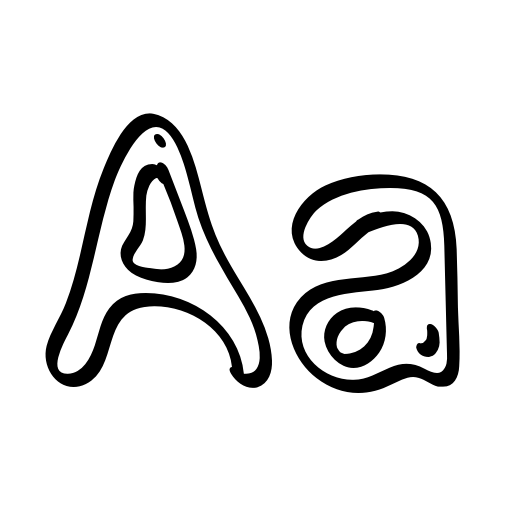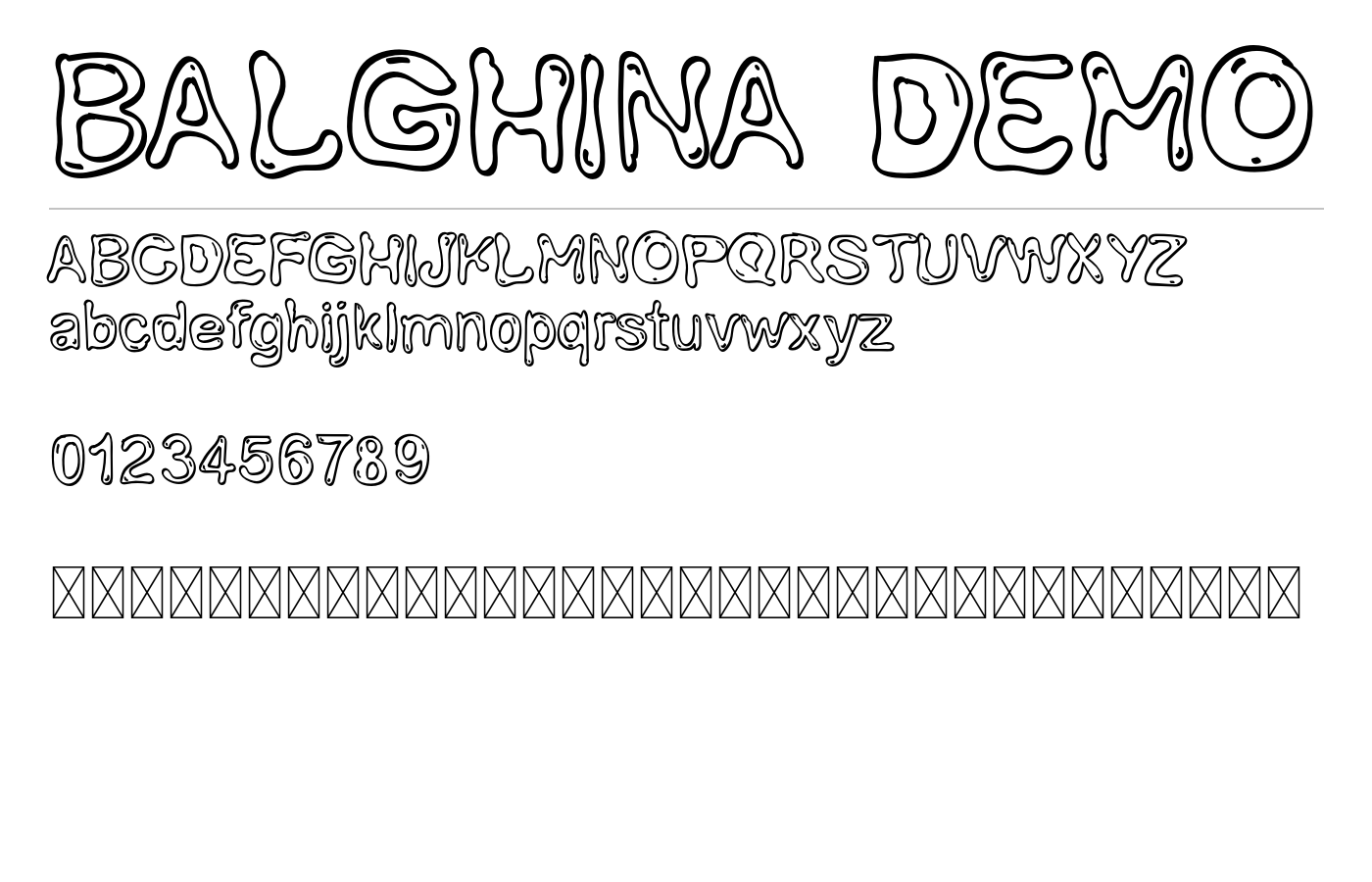
Balghina Demo is a playful and quirky hand-drawn sans serif font featuring irregular, wavy letterforms that create a casual and fun vibe. Its light weight and open structure make it ideal for informal designs, children’s projects, and creative branding that seeks a unique, approachable personality. This font works best in headlines, logos, and packaging where a lively, artistic touch is desired.
BALGHINA DEMO Font
About BALGHINA DEMO Font
| Designer | MCHCRAFTER |